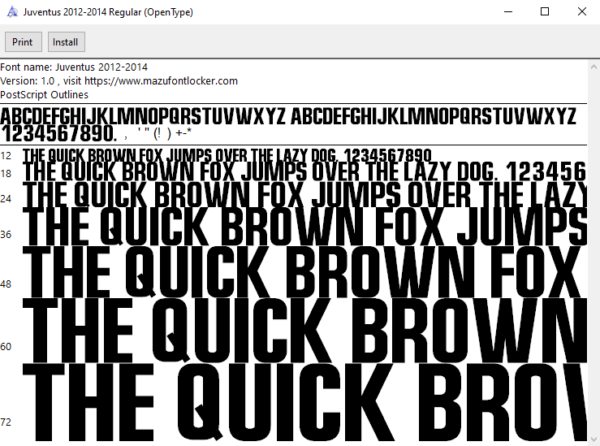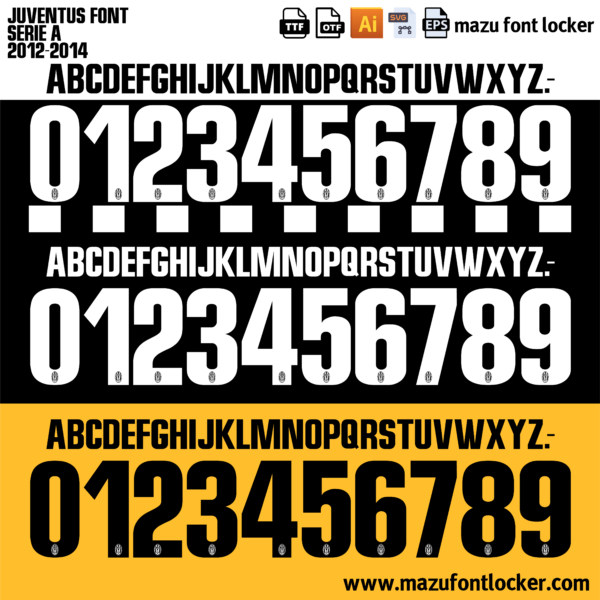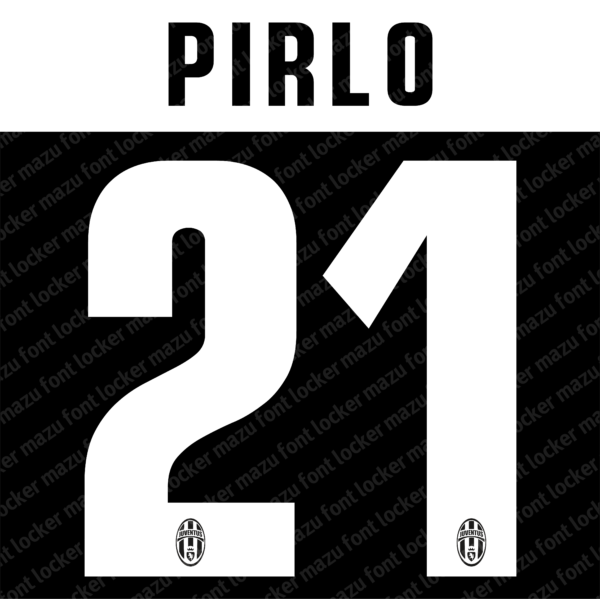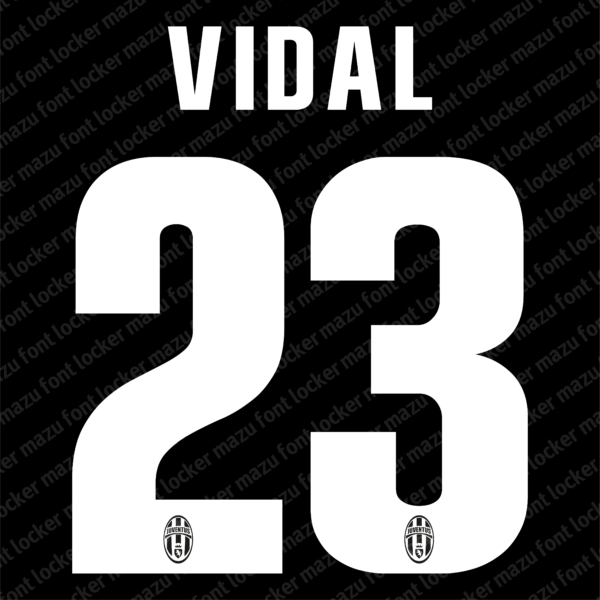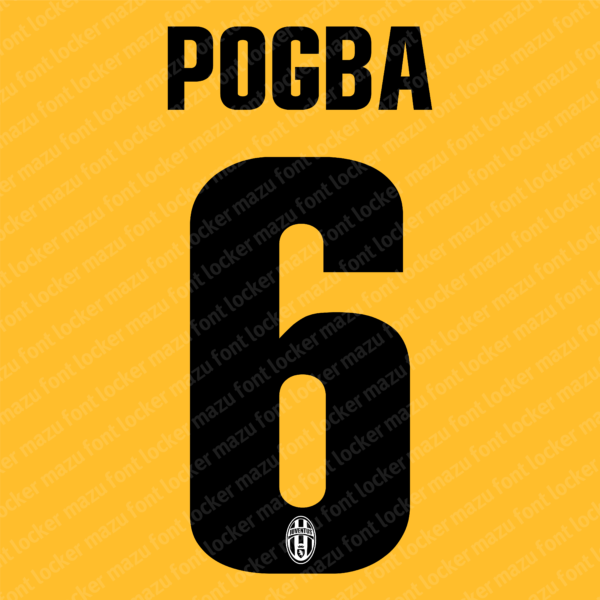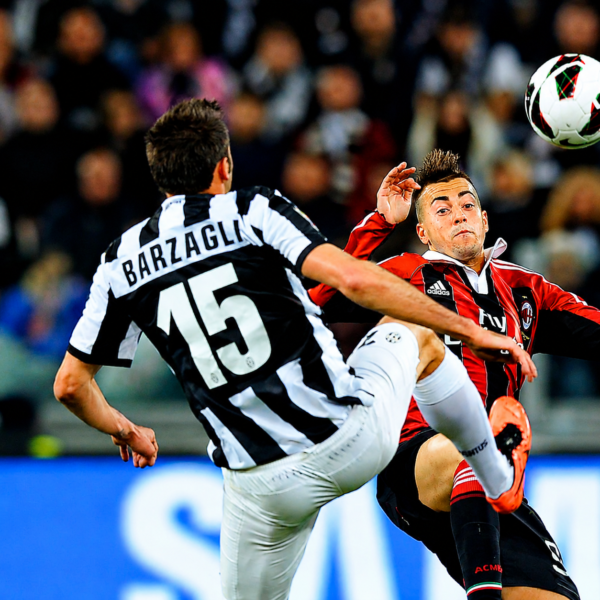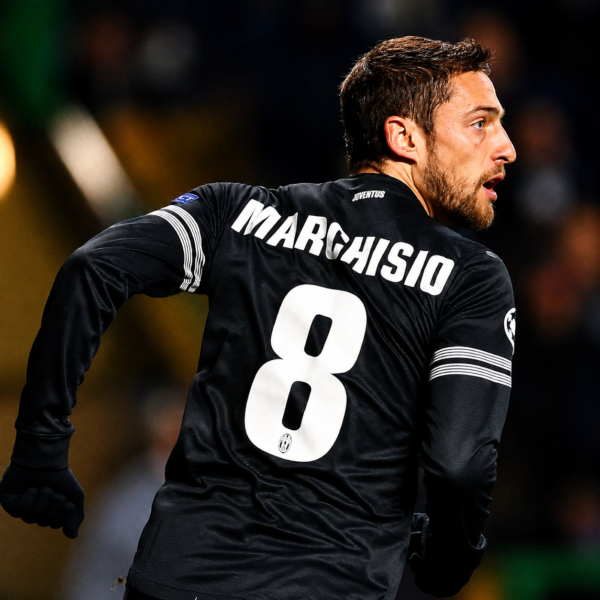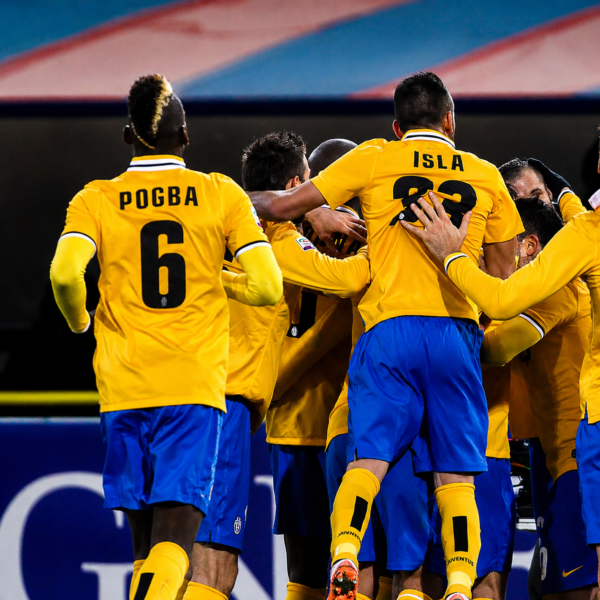
Juventus 2012-2014 Font – Unstoppable Legendary Bianconeri Champion
Download Juventus 2012-2014 Font now and experience the golden era of Italian football dominance. This powerful Juventus 2012-2014 Font captures the iconic style and commanding presence of the legendary Bianconeri squad during their unforgettable 2012-2014 seasons. Perfect for creating stunning posters, fan merchandise, social media content, and custom jerseys. With its bold, elegant, and highly detailed lettering, Juventus 2012-2014 Font delivers premium quality and strong visual impact that radiates class, heritage, and championship spirit.
Juventus Font Kit 2012/2014 – Authentic Serie A Typeface
The Juventus 2012-2014 Font is a premium typeface that accurately recreates the official match lettering worn by Juventus during the 2012/2013 and 2013/2014 Serie A seasons. This high-quality font kit captures the bold, clean, and modern typography that marked the beginning of Juventus’ successful new era.
Designed for professional designers and passionate Juventus fans, the Juventus 2012-2014 Font delivers perfect authenticity for creating retro jersey mockups, fan merchandise, matchday posters, social media graphics, and much more. It perfectly complements the club’s iconic black-and-white striped kits from that period.
Why Choose Juventus 2012-2014 Font
This font stands out because of its sharp details and strong presence. Every letter and number is crafted to match the exact style used on the players’ shirts during the 2012-2014 seasons. Whether you are making vintage shirt templates or nostalgic football content, the Juventus 2012-2014 Font gives your designs that authentic Serie A look from the early 2010s.
The letterforms in the Juventus 2012-2014 Font are tall, bold, and highly readable. The strokes have a balanced weight that looks powerful and professional on the back of jerseys while maintaining excellent clarity.
The numerals use solid curves and firm edges, giving them a confident and premium appearance. This design ensures great legibility whether used in large print formats, digital mockups, or retro video content.
• Full uppercase A–Z and numbers 0–9 in authentic Juventus 2012-2014 style
• Special Juventus logo glyph for accurate shirt number detailing
• Create highly realistic retro Serie A jersey mockups with accurate lettering
• Design classic matchday posters, score graphics, and squad announcements
• Produce custom Juventus merchandise with a nostalgic football aesthetic
• Includes the exact logo glyph placement used under player numbers
Juventus in the 2012/2014 Season